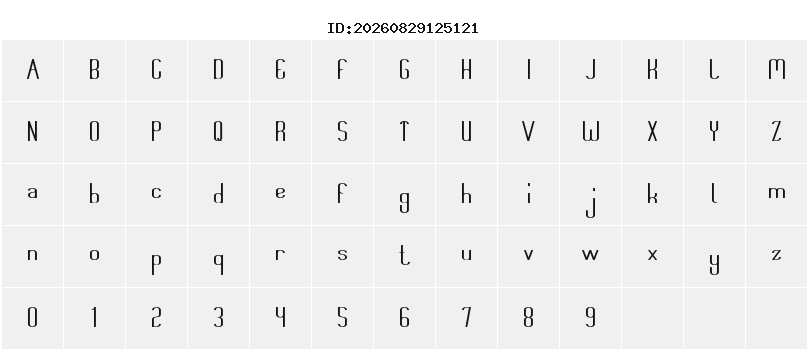
Think More For Solution Preview
• Font Name: Think More For Solution
• Full Font Name: Think More For Solution
About Think More For Solution.ttf
Think More For Solution.ttf is a modern, elegant sans-serif font designed for ultimate readability and visual harmony. Perfect for branding, headlines, web design, and print materials.